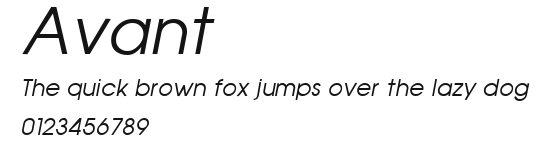
• Font Name: Avant
• Font ID: Altsys Fontographer 3.5 Avant Italic
• Full Font Name: Avant Italic
• PostScript Name: Avant Italic
About Avant.ttf
Avant.ttf is a modern, elegant sans-serif font designed for ultimate readability and visual harmony. Perfect for branding, headlines, web design, and print materials.